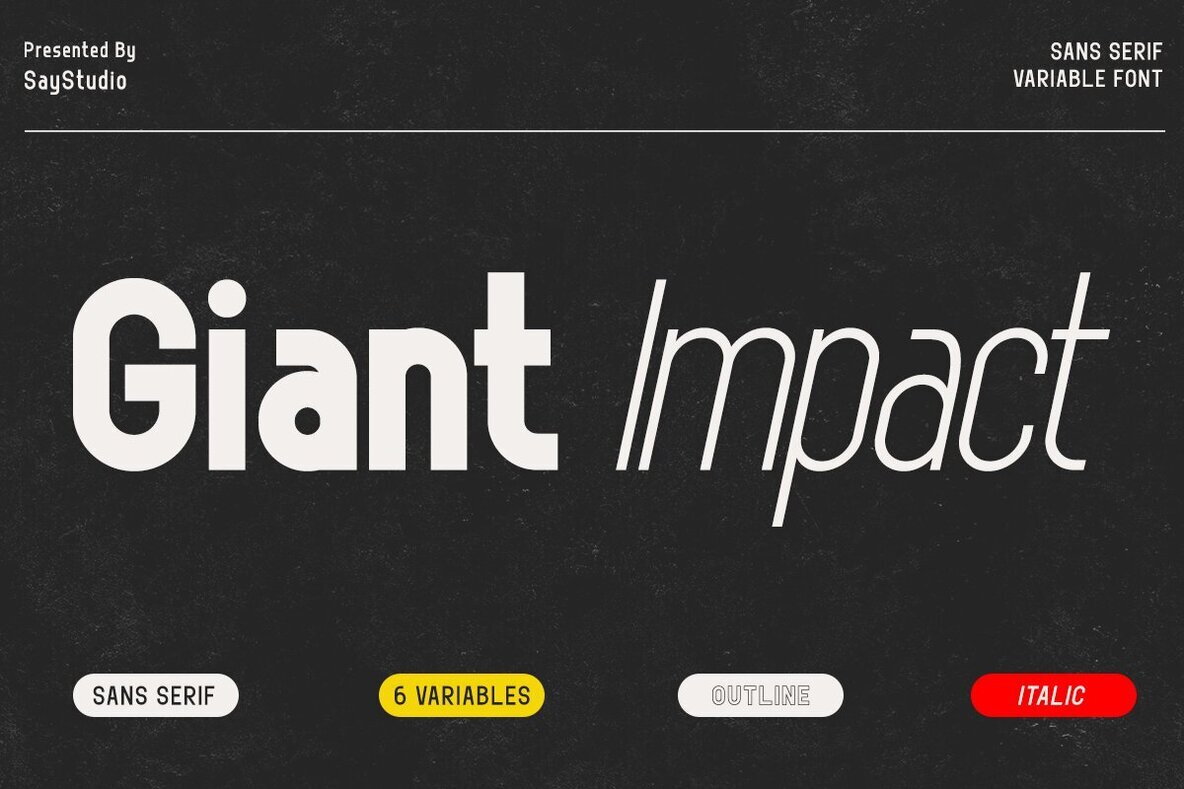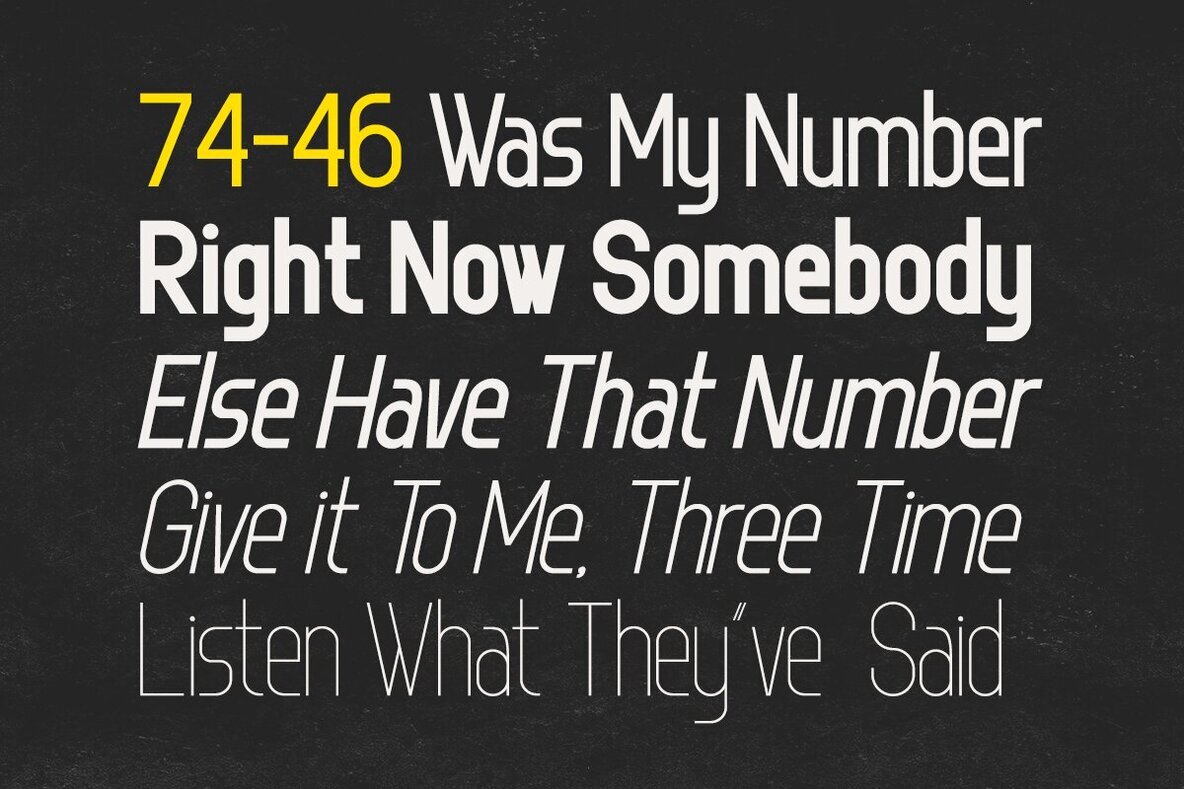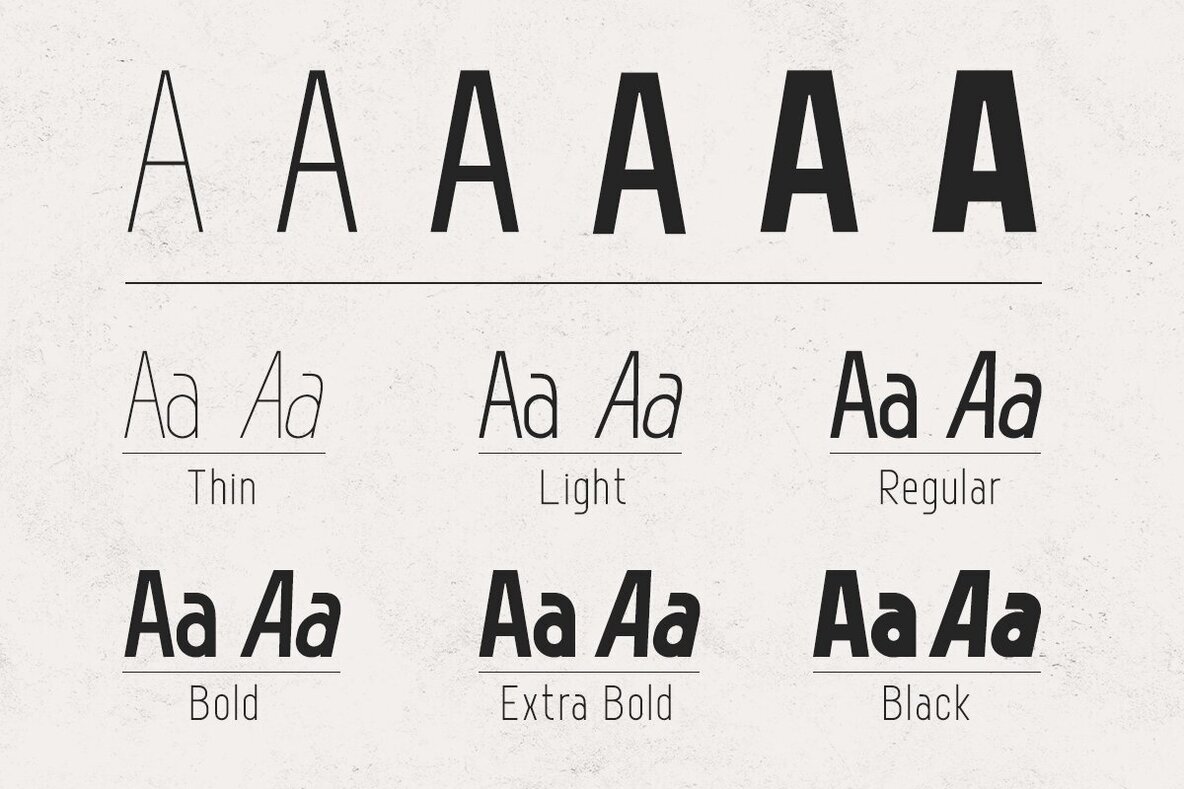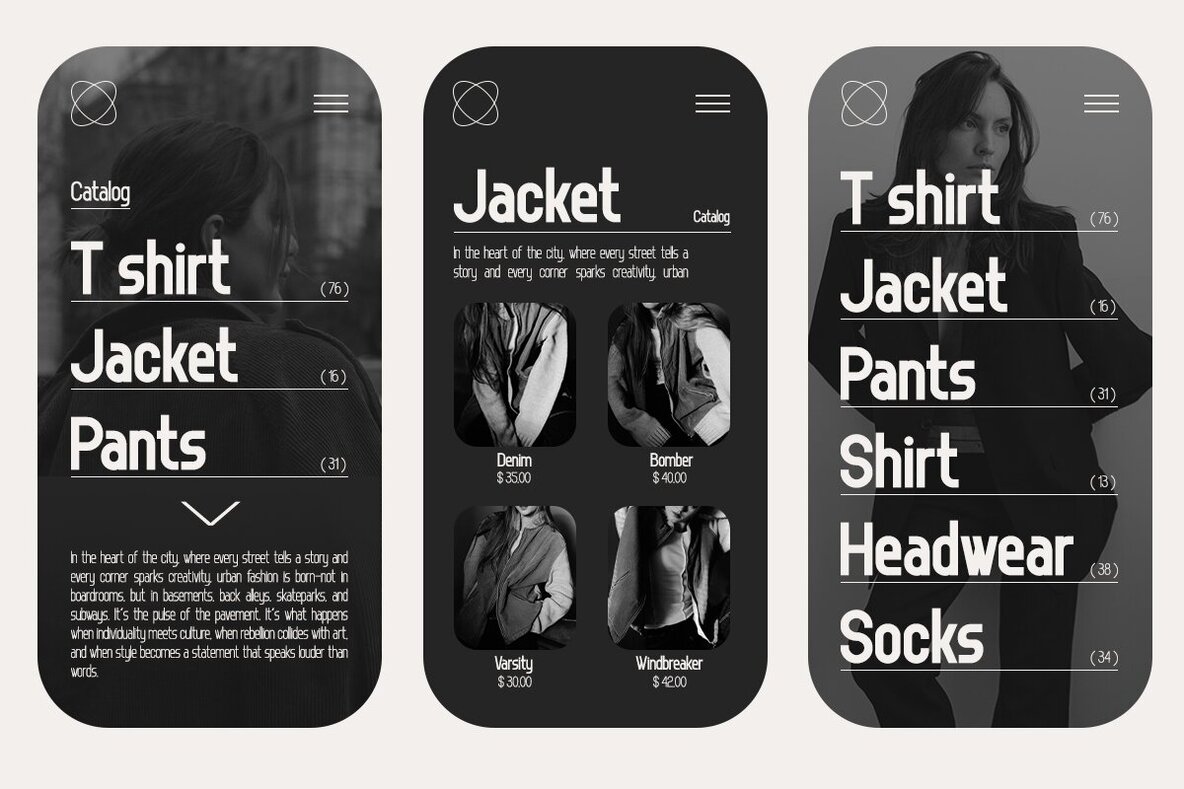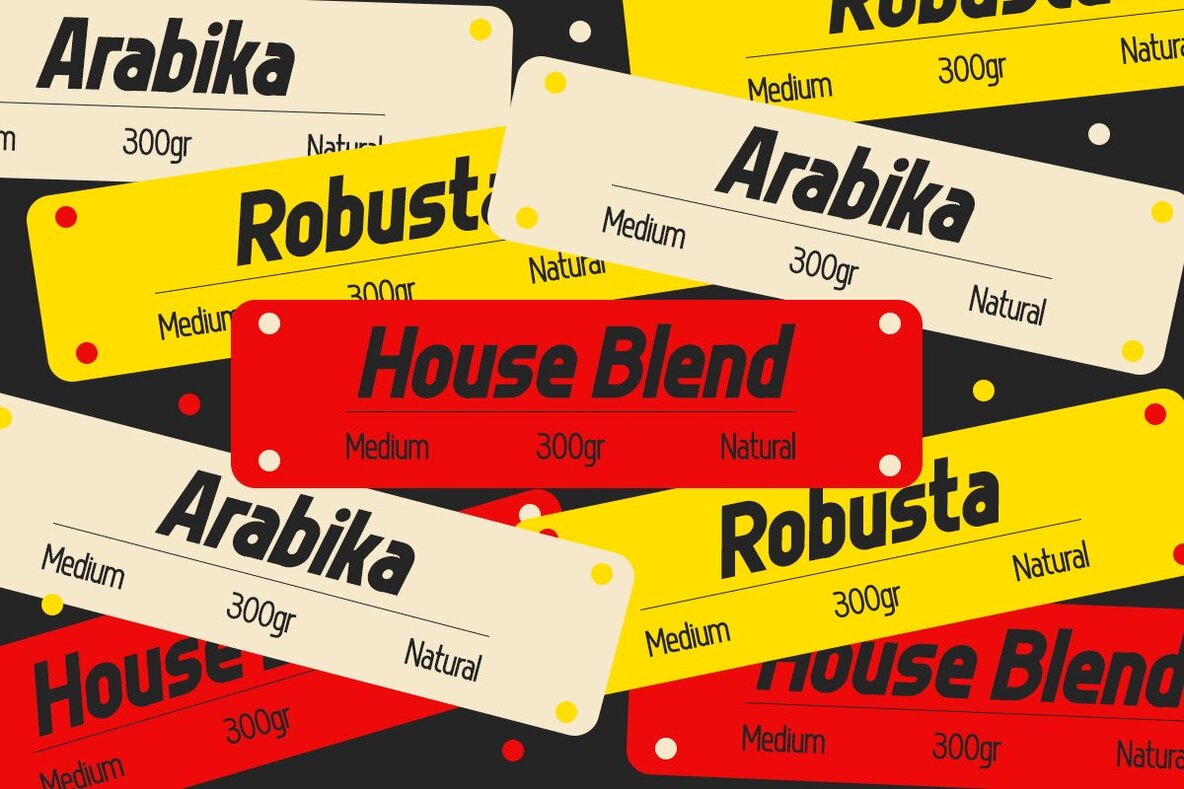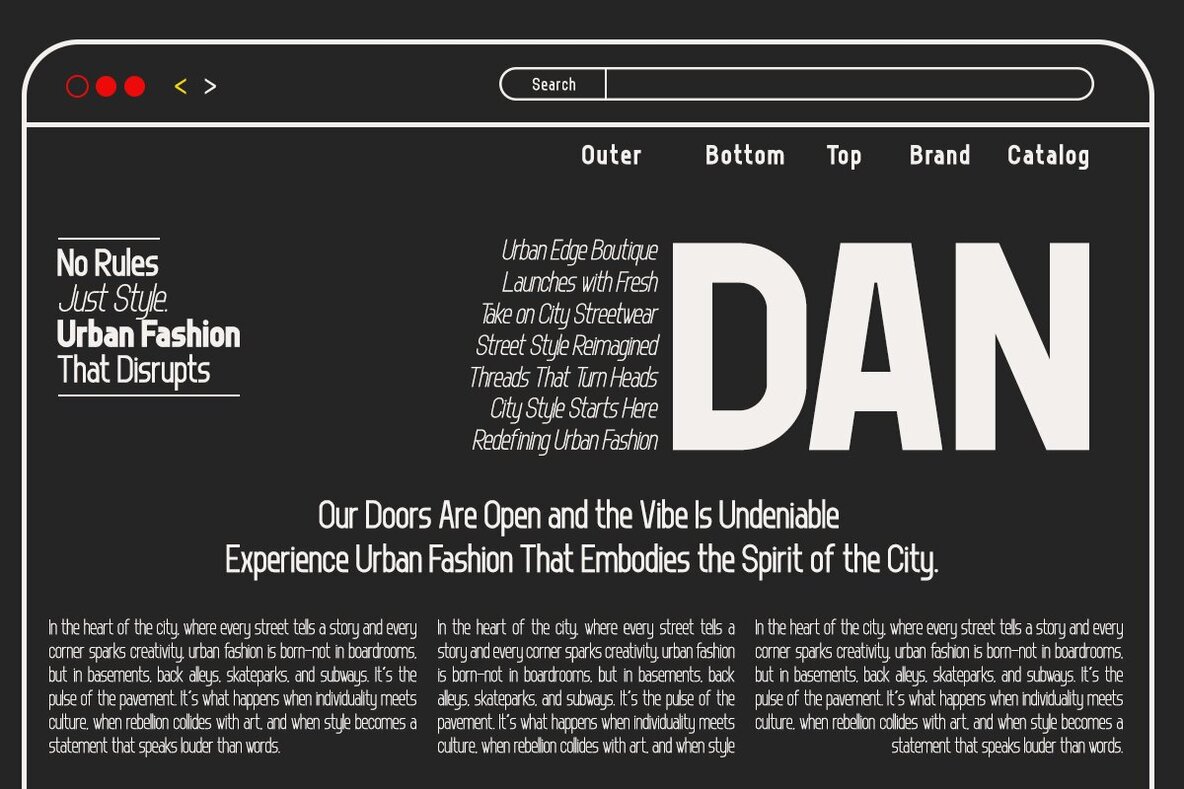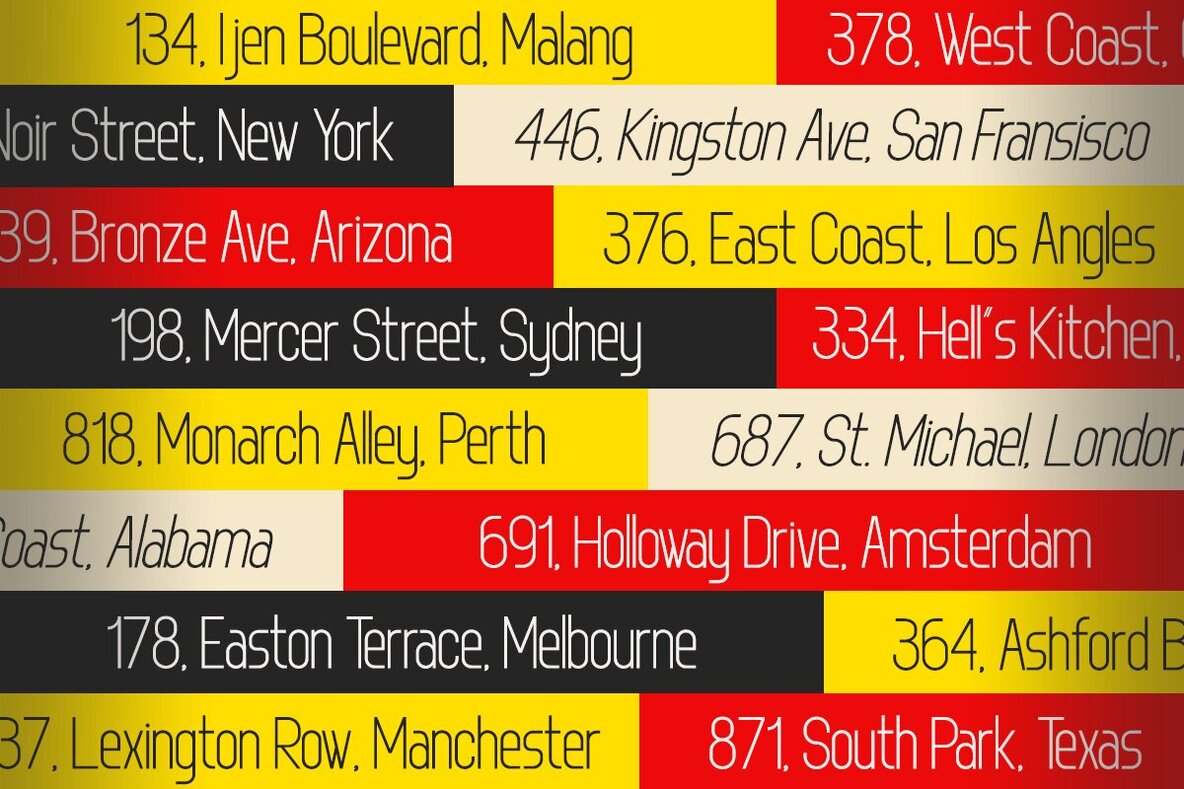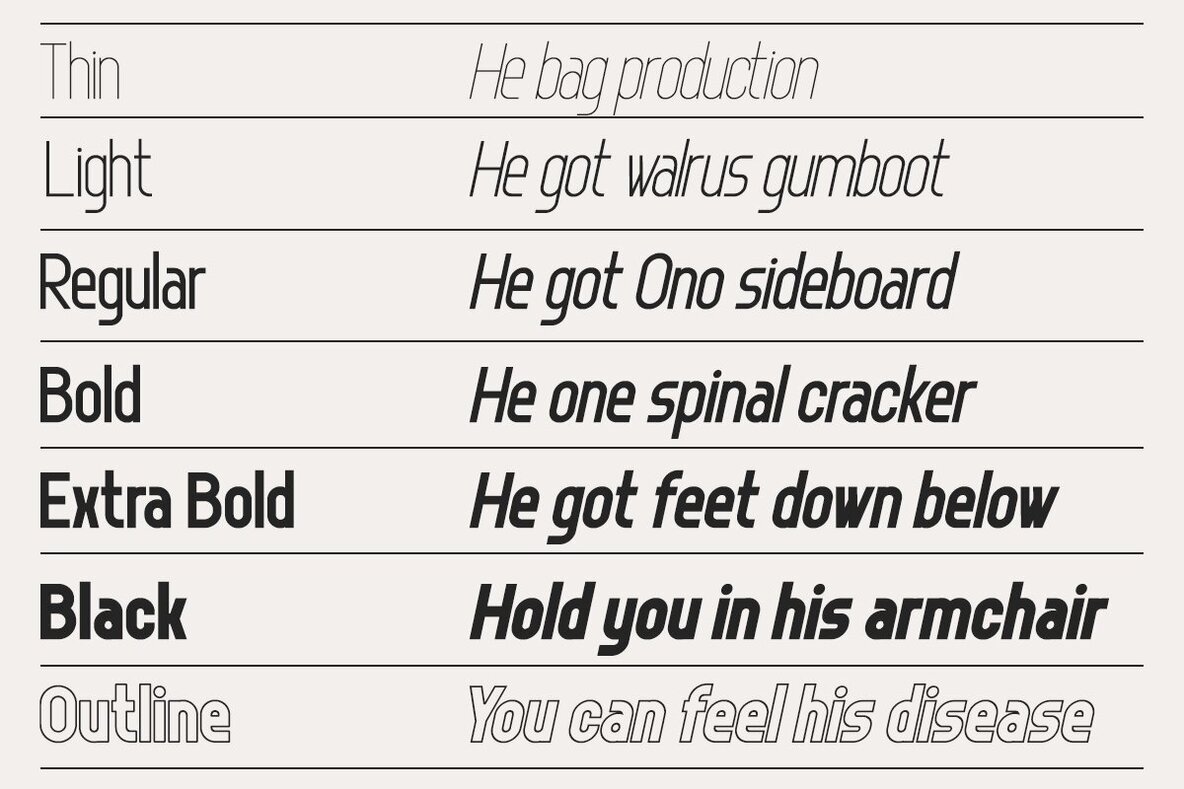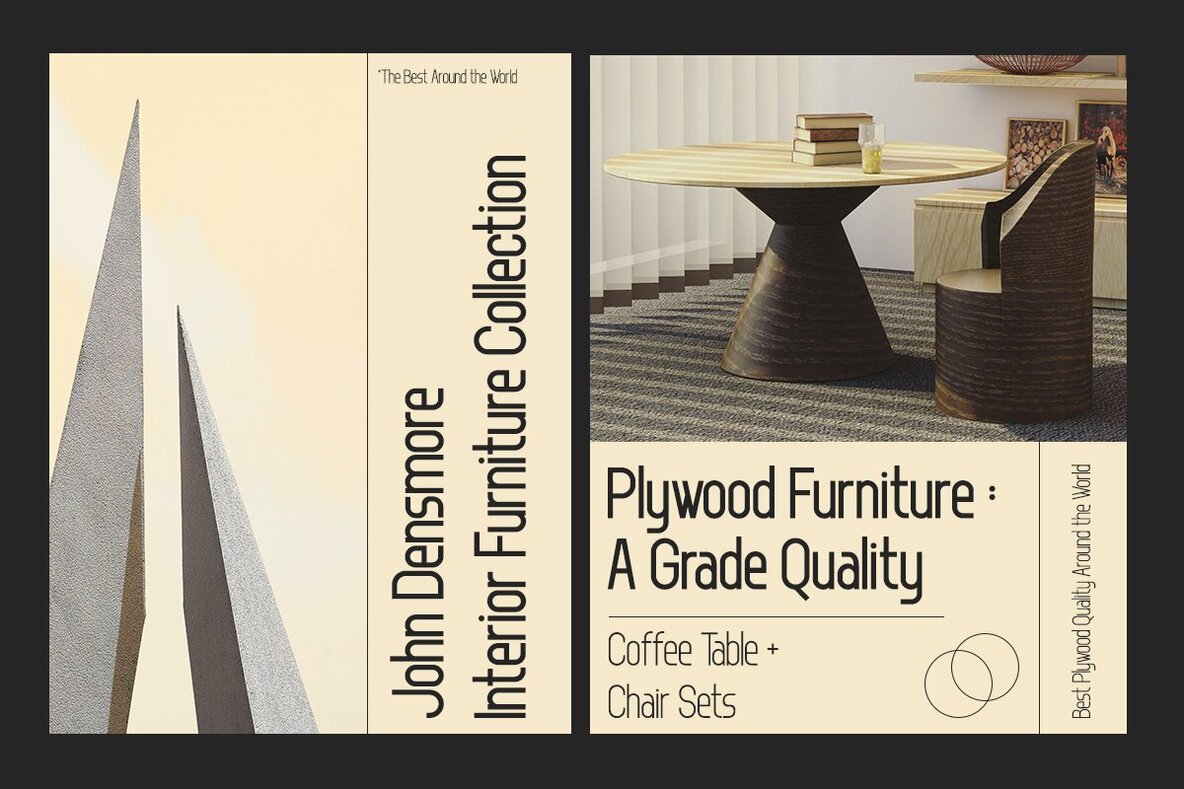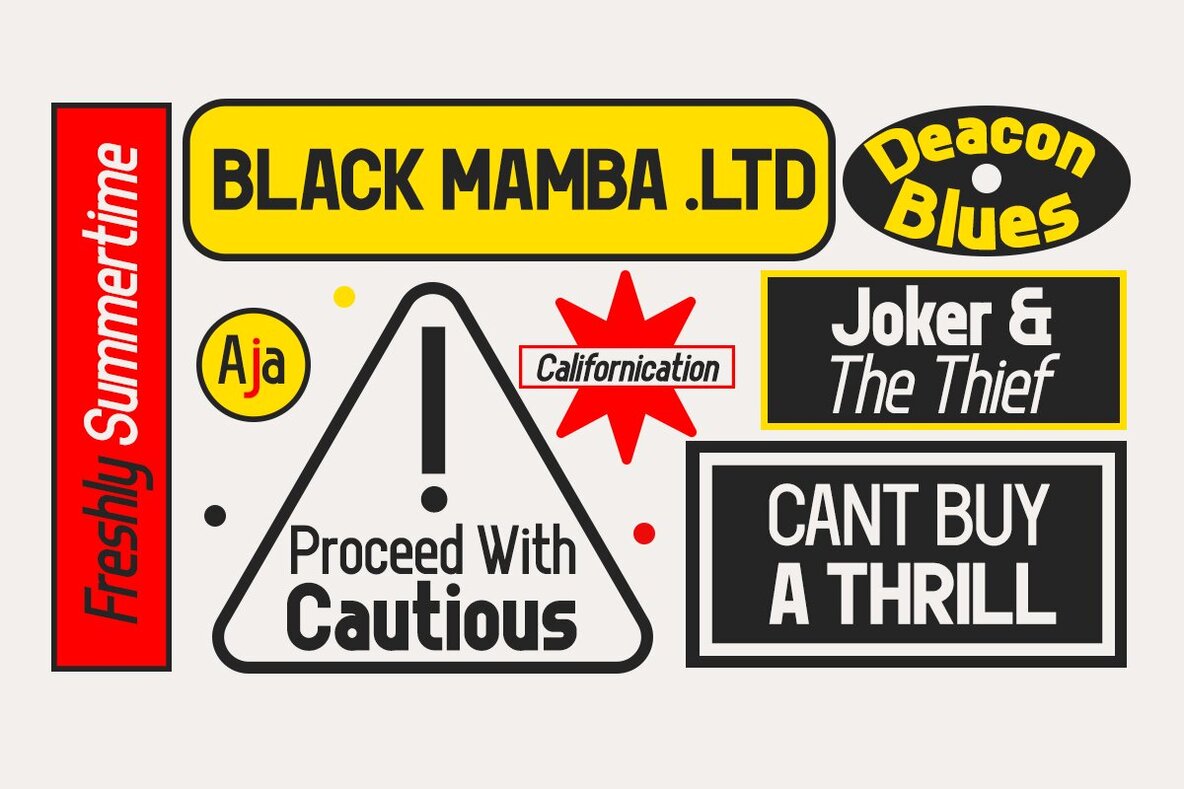
Giant Impact Font
Giant Impact offers a unique grotesque style with 6 variable weights, including Italic and outline options. Its combination of varied heights and weights allows for enhanced versatility in any text setting. This typeface features six distinct instances, spanning from thin to heavy, with the unique ability to maintain constant weights while adjusting height. Ideal for both digital and print applications, Giant Impact brings a new dimension to modern design. Perfect for: Features:Giant Impact: A Versatile Grotesque Typeface